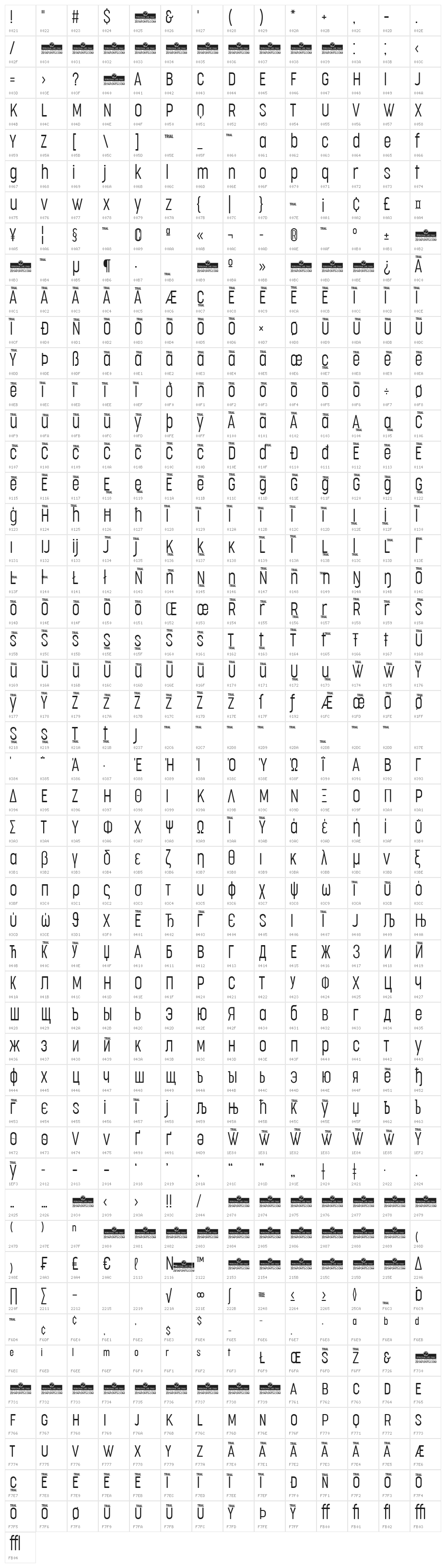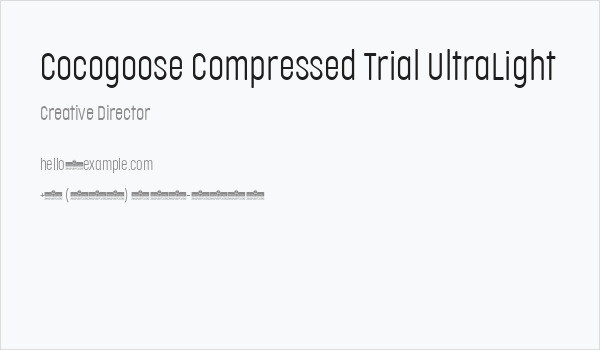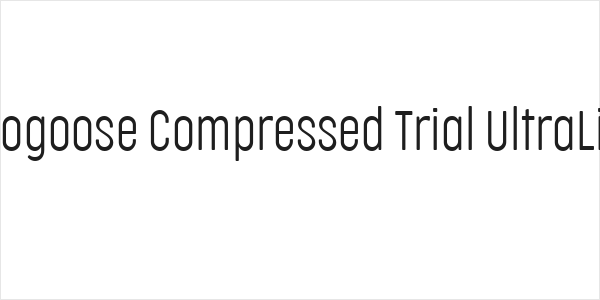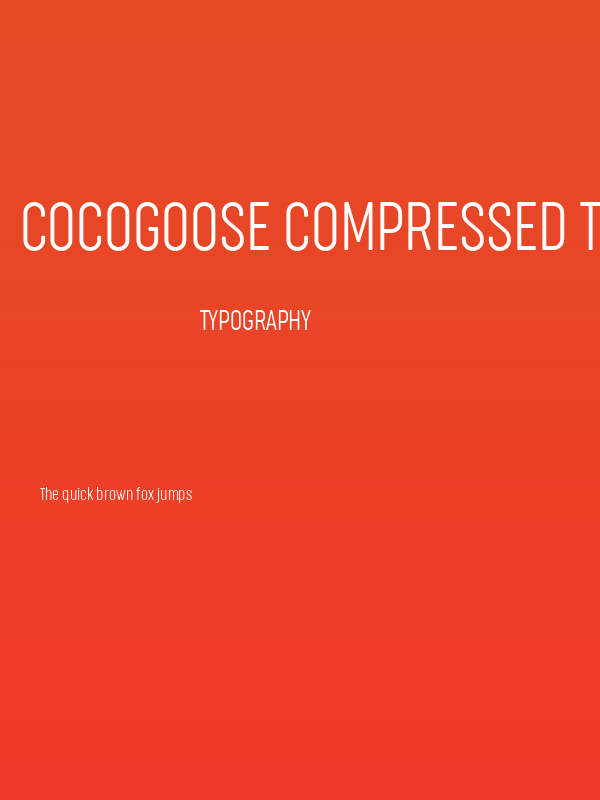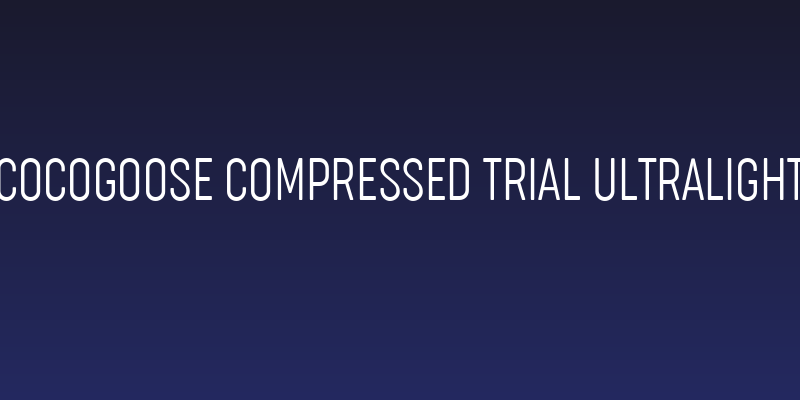
Cocogoose Compressed Trial UltraLight Font
Cocogoose Compressed Trial UltraLight Description
This font features a sleek, modern design with a condensed structure that emphasizes verticality and minimalism. The ultra-light weight gives it an airy and elegant appearance, making it suitable for contemporary design projects. The characters are evenly spaced, contributing to a clean and organized look. The uppercase and lowercase letters maintain a consistent style, with smooth curves and straight lines that enhance readability. Special characters are designed with the same minimalist approach, ensuring uniformity across all glyphs. This font's simplicity and clarity make it versatile for various applications.
| Proposed Projects | Ideal for branding, editorial design, and digital interfaces where a modern and clean aesthetic is desired. |